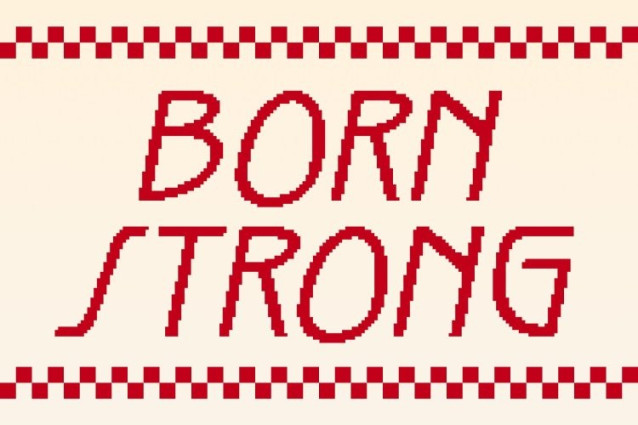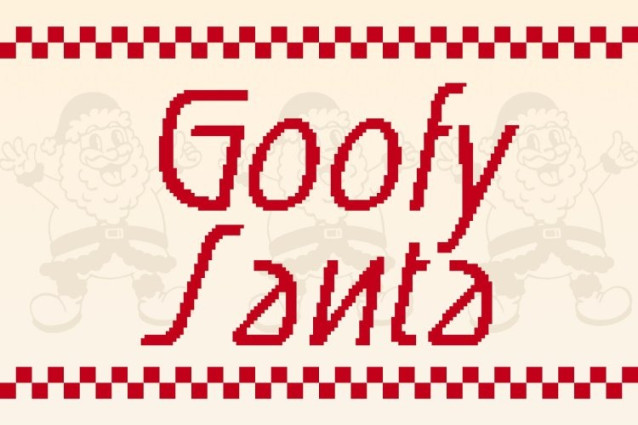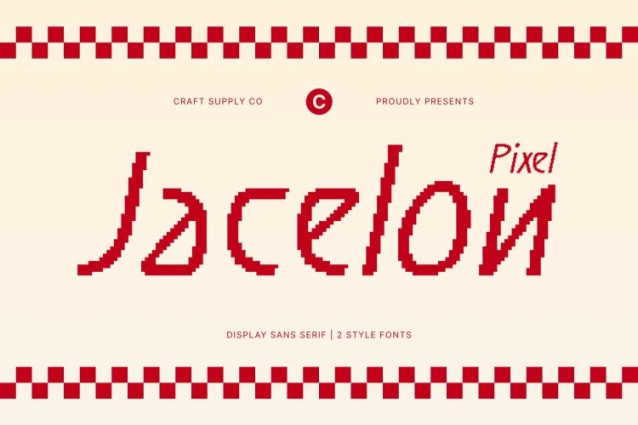
Jacelon Pixel Font This Art Deco-inspired typeface embodies the classic geometric design, presenting refined shapes, sharp symmetry, and a timeless architectural feel. Its striking characters carry a sense of luxury and sophistication, making each letter both decorative and iconic. The experimental structure further enhances its unique presence, giving your designs a powerful visual identity rooted in historic charm yet modern in execution.
Pixel Style for a Unique Modern Twist
Enhanced with a pixel-inspired texture, this font introduces a fresh digital edge to its classic Art Deco form. The pixel style not only adds character but also creates a stylish modern contrast, turning traditional geometry into artistic, and visually engaging. This fusion of vintage sophistication and digital flair makes the typeface stand out in contemporary design spaces.
Perfect for Luxury Branding and Decorative Themes
Ideal for luxury branding, Deco-inspired posters, editorial layouts, album covers, and high-end packaging, the font excels in projects that demand precision and elegance. Its strong geometric construction ensures impactful headlines, while its artistic details add personality and charm.
A Fusion of Elegance, Experimentation, and Pixel Craft
By blending Art Deco refinement with pixel-infused creativity, this typeface becomes a versatile choice for modern designers. It delivers a harmonious mix of classic beauty and futuristic energy perfect for decoration-themed visuals, stylish branding, and designs that aim to be both memorable and artistically sophisticated.